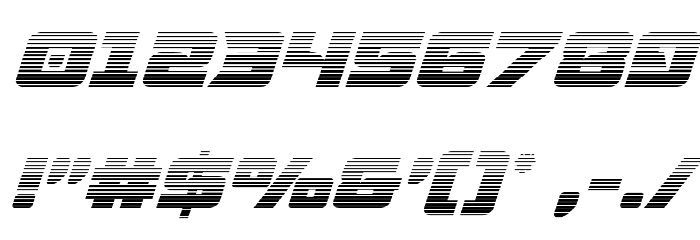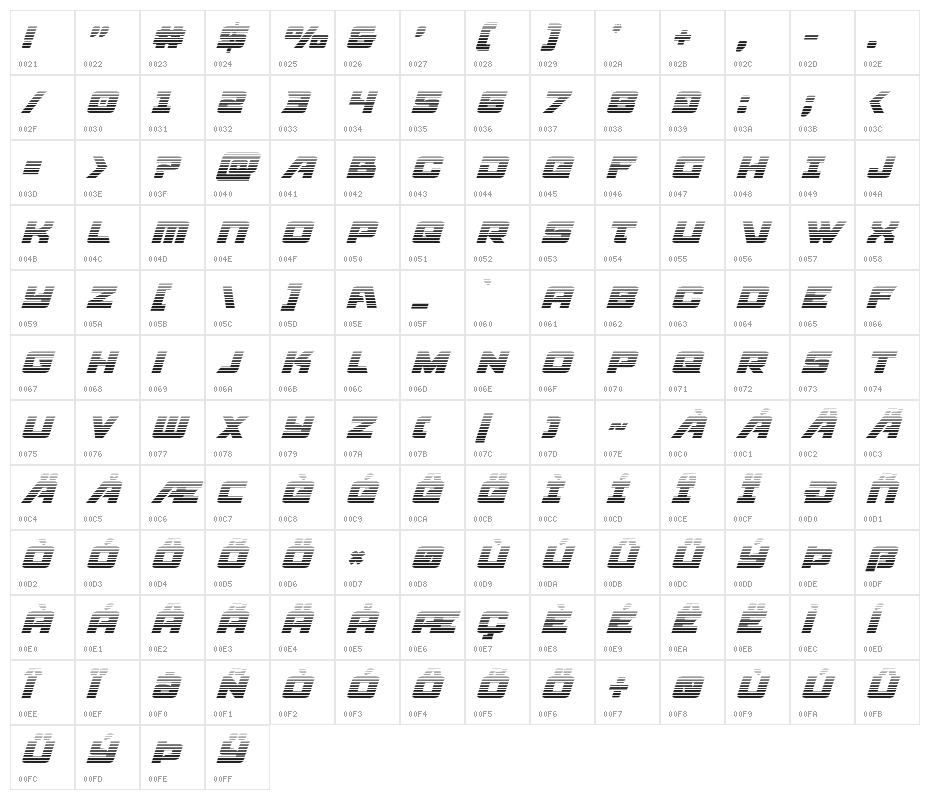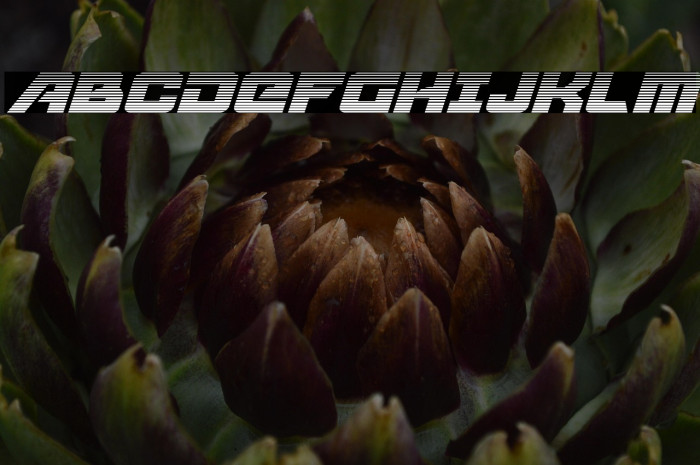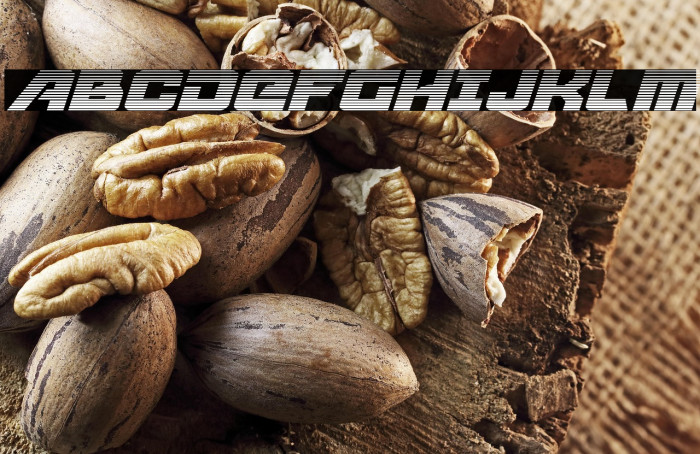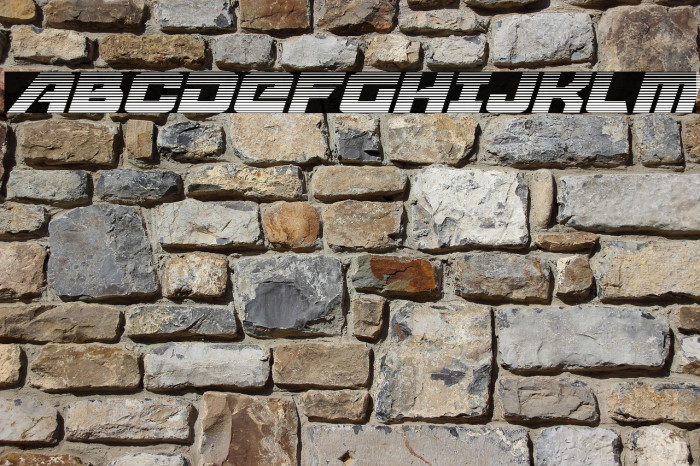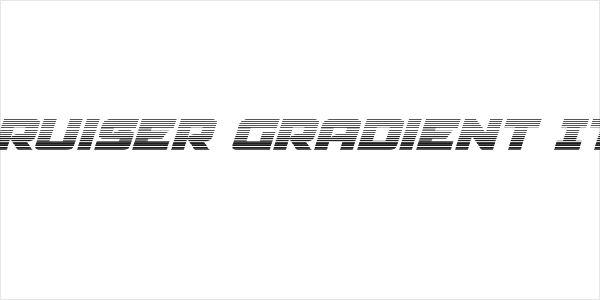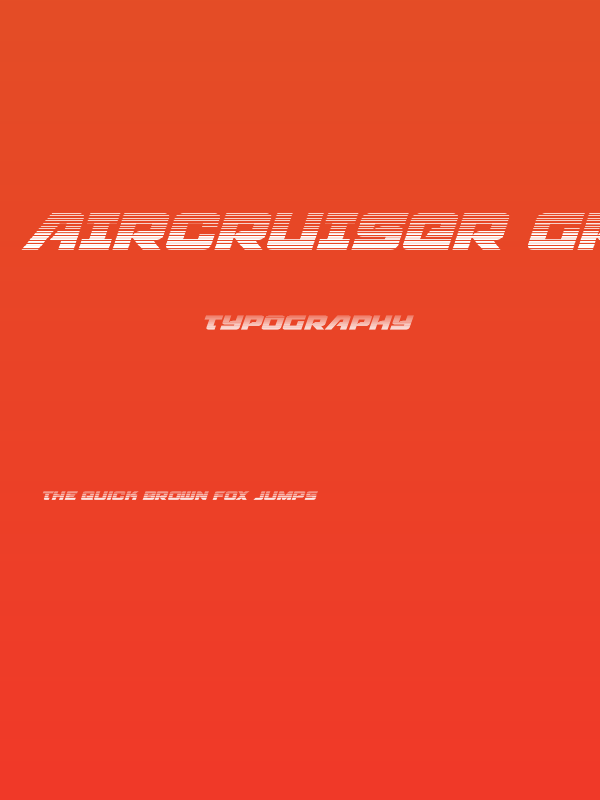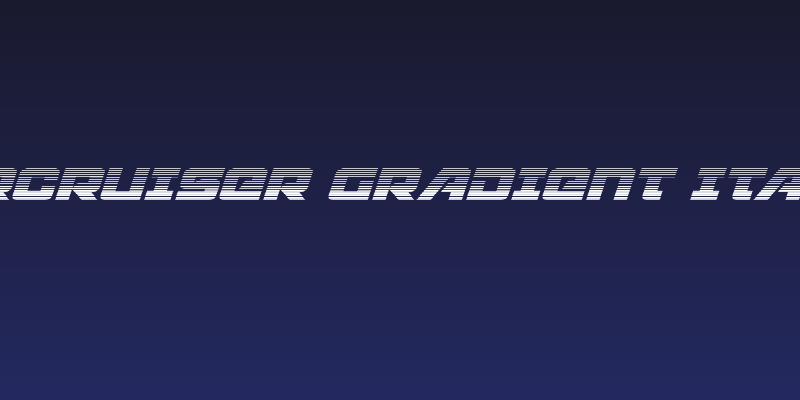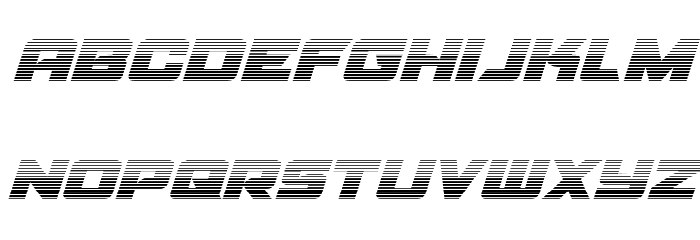
Aircruiser Gradient Italic Font
Aircruiser Gradient Italic Description
This font features a dynamic and futuristic design with a distinct gradient effect that gives the impression of movement and speed. The italicized style enhances its modern and sleek appearance, making it ideal for projects that require a sense of motion or innovation. The characters are bold and wide, with a consistent horizontal line pattern that adds depth and dimension. This font is particularly suitable for creative and tech-oriented designs, offering a unique visual impact.
| Proposed Projects | Perfect for branding in tech industries, sports team logos, futuristic posters, and video game titles. |